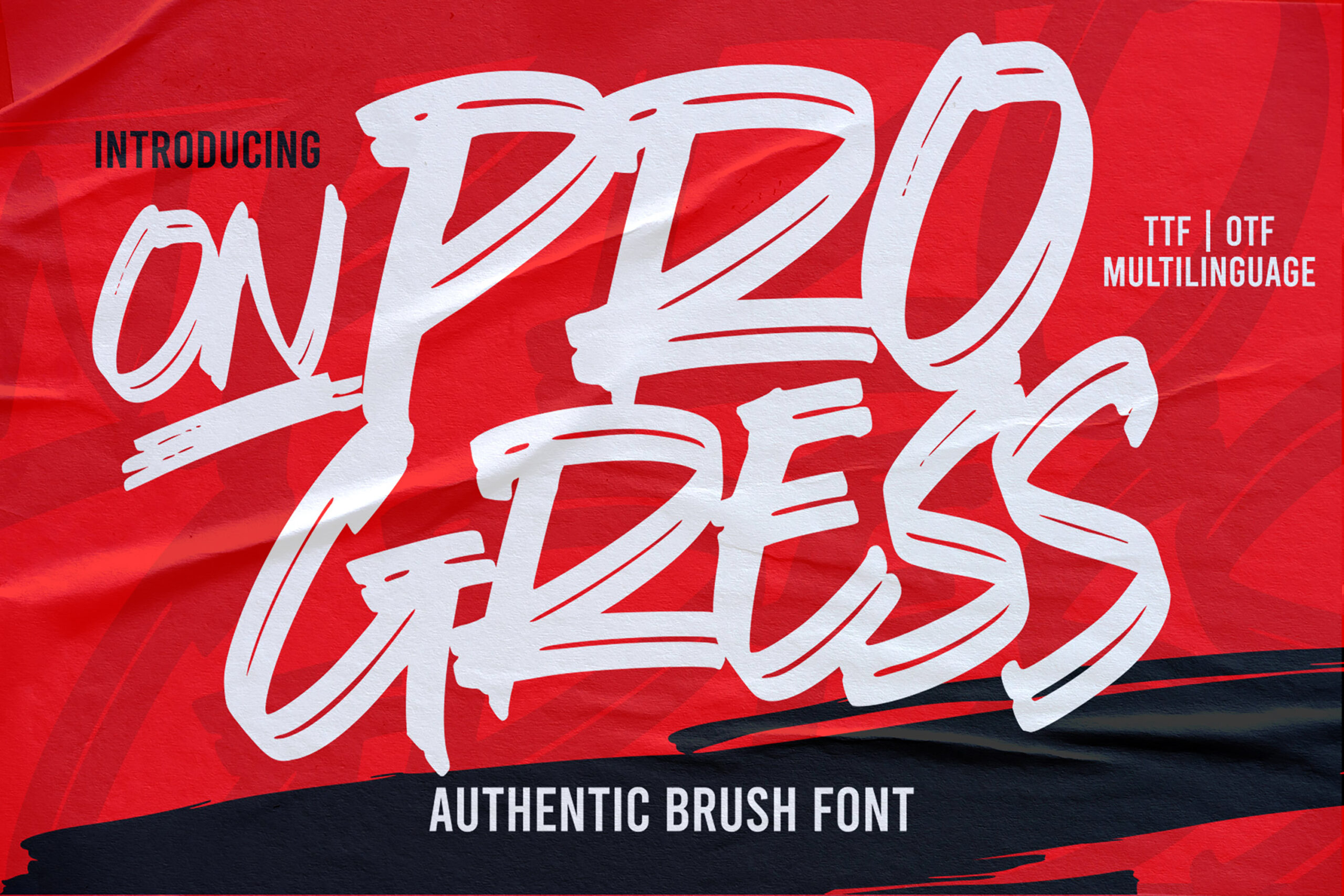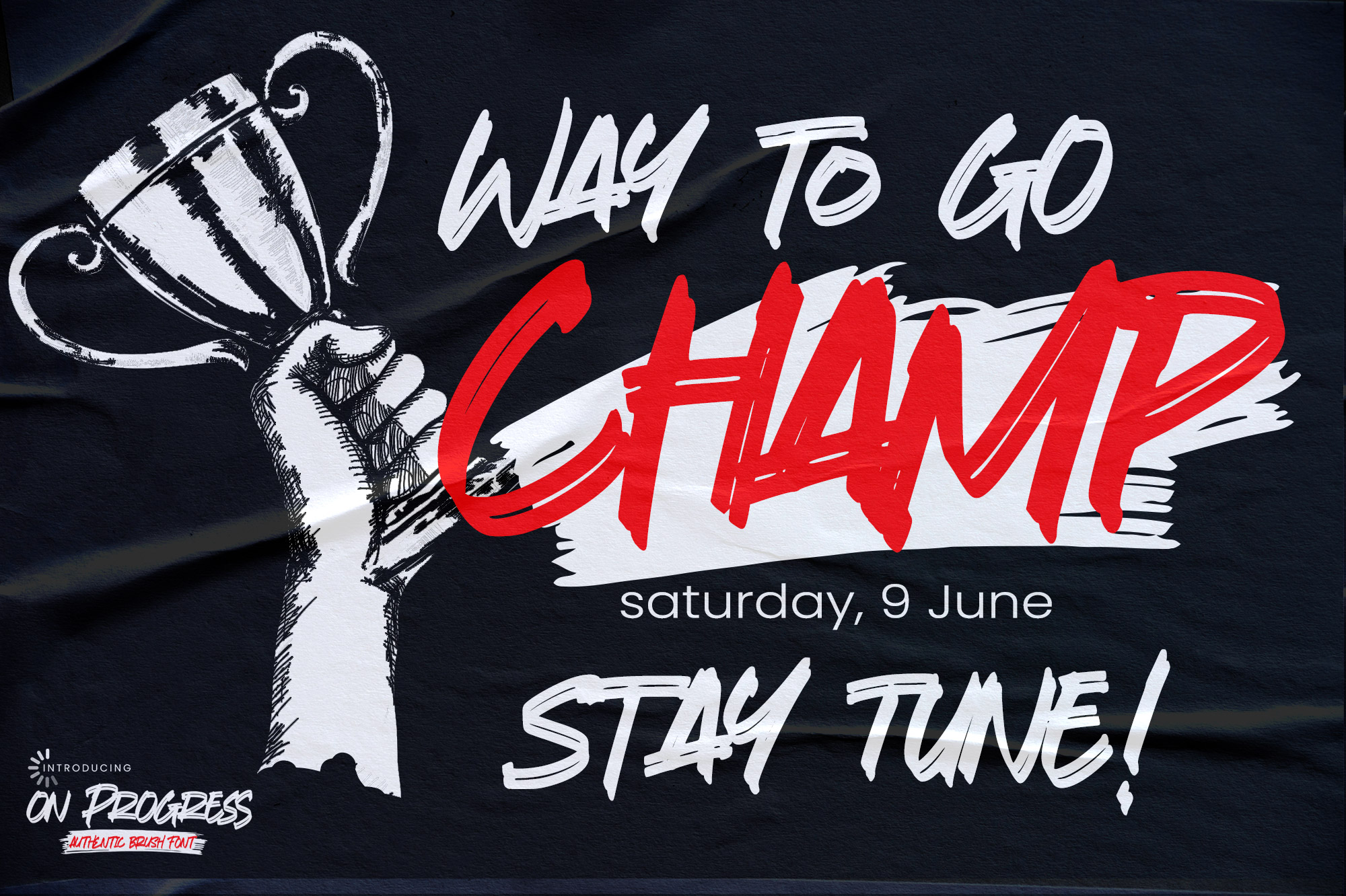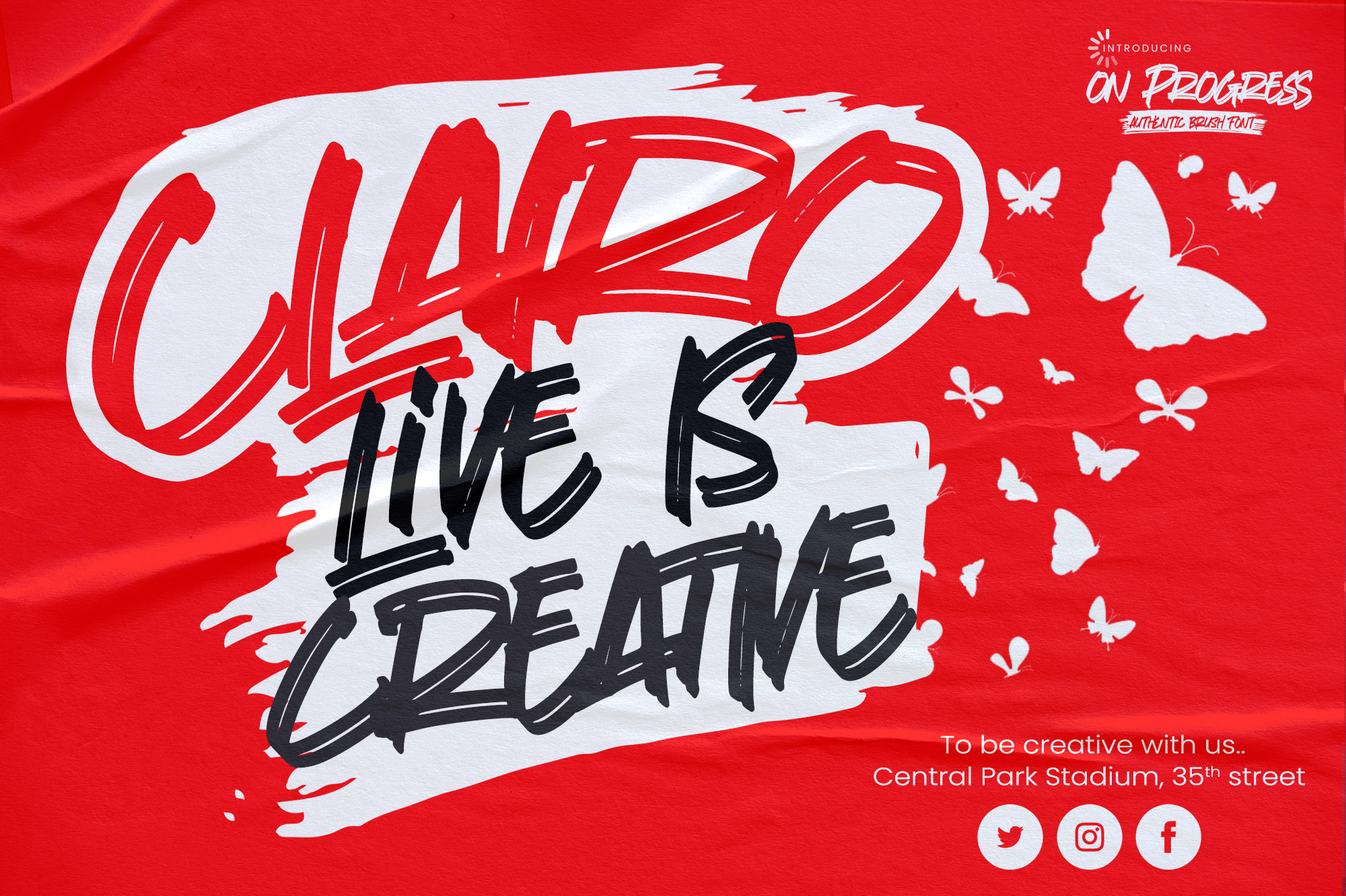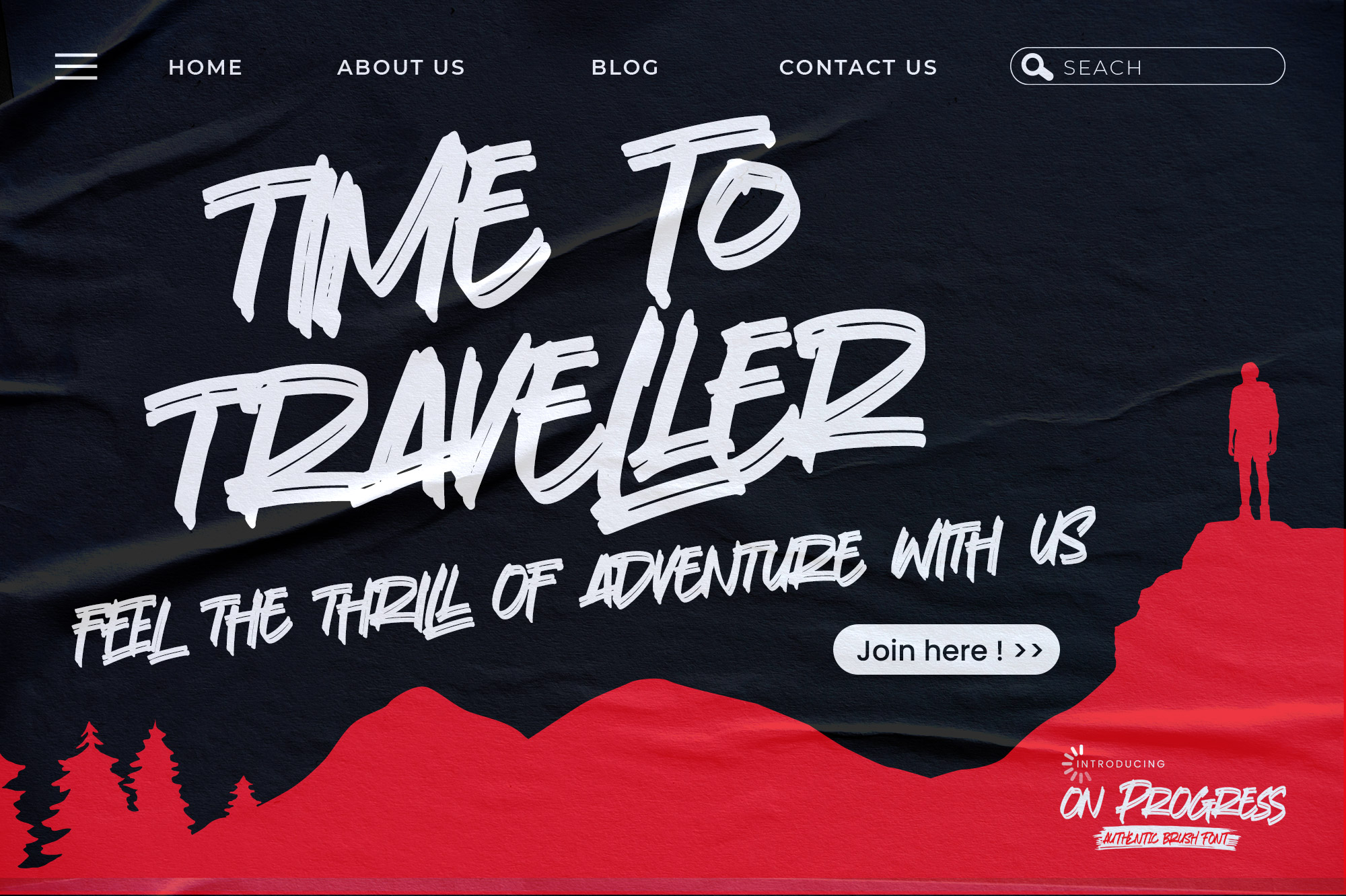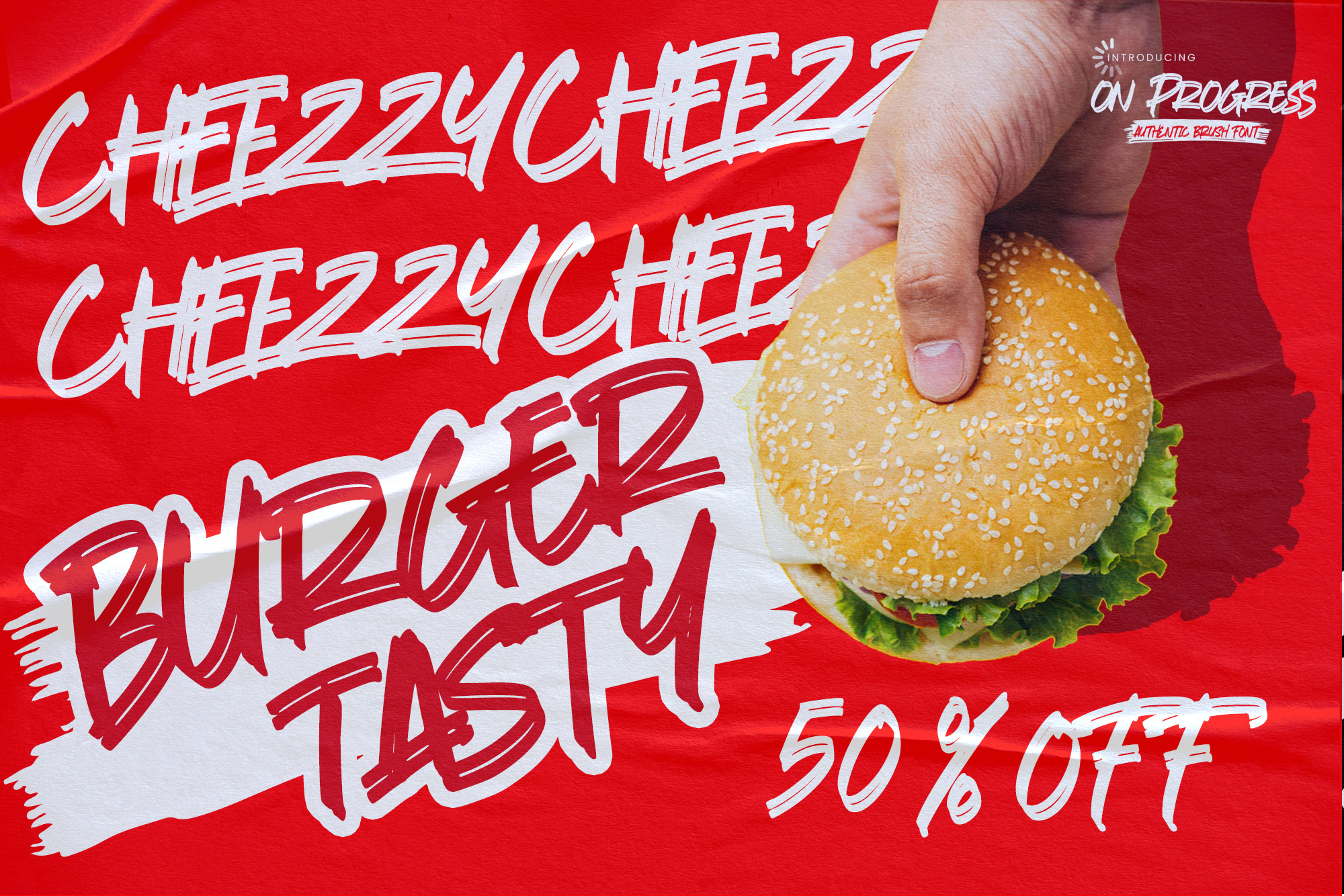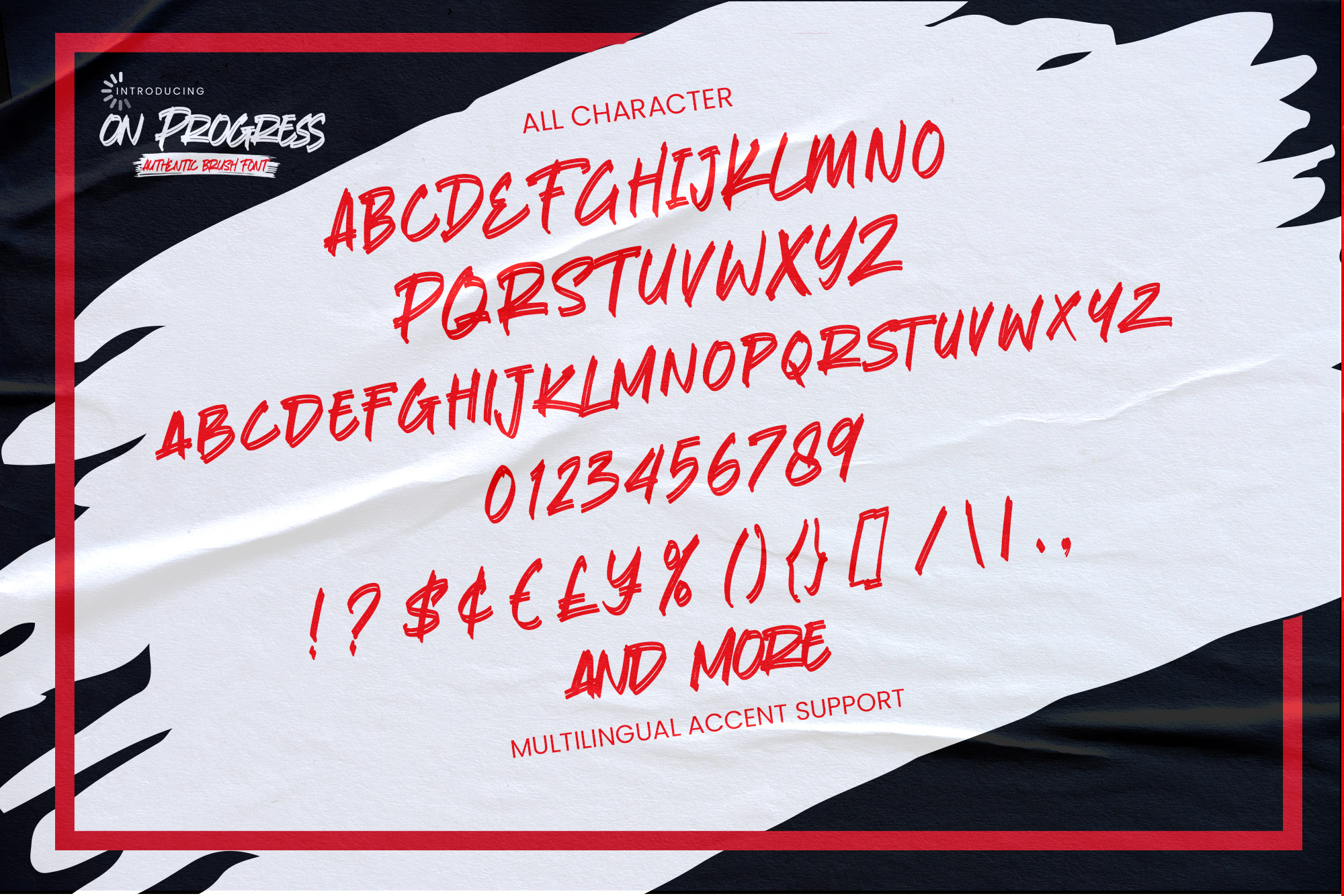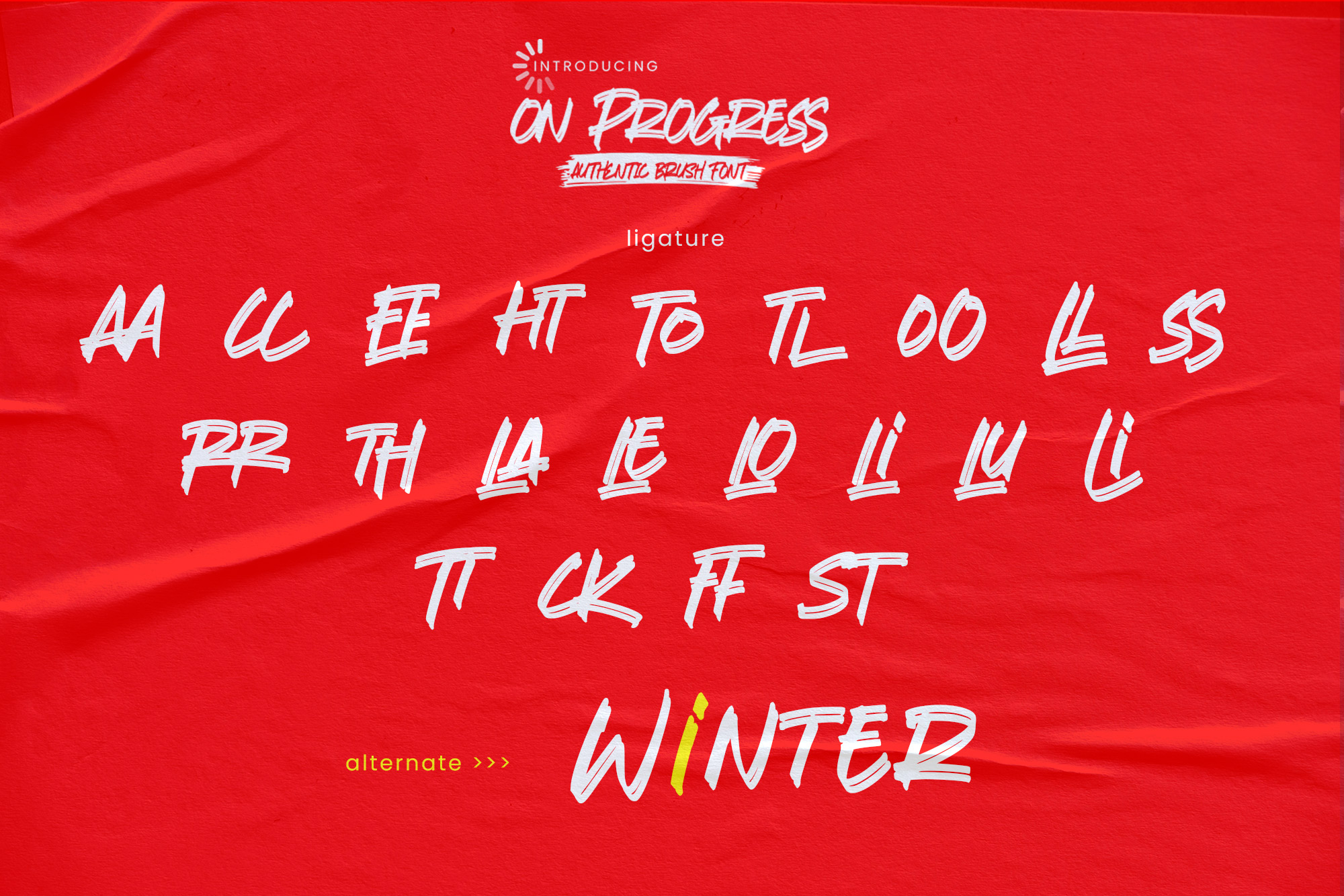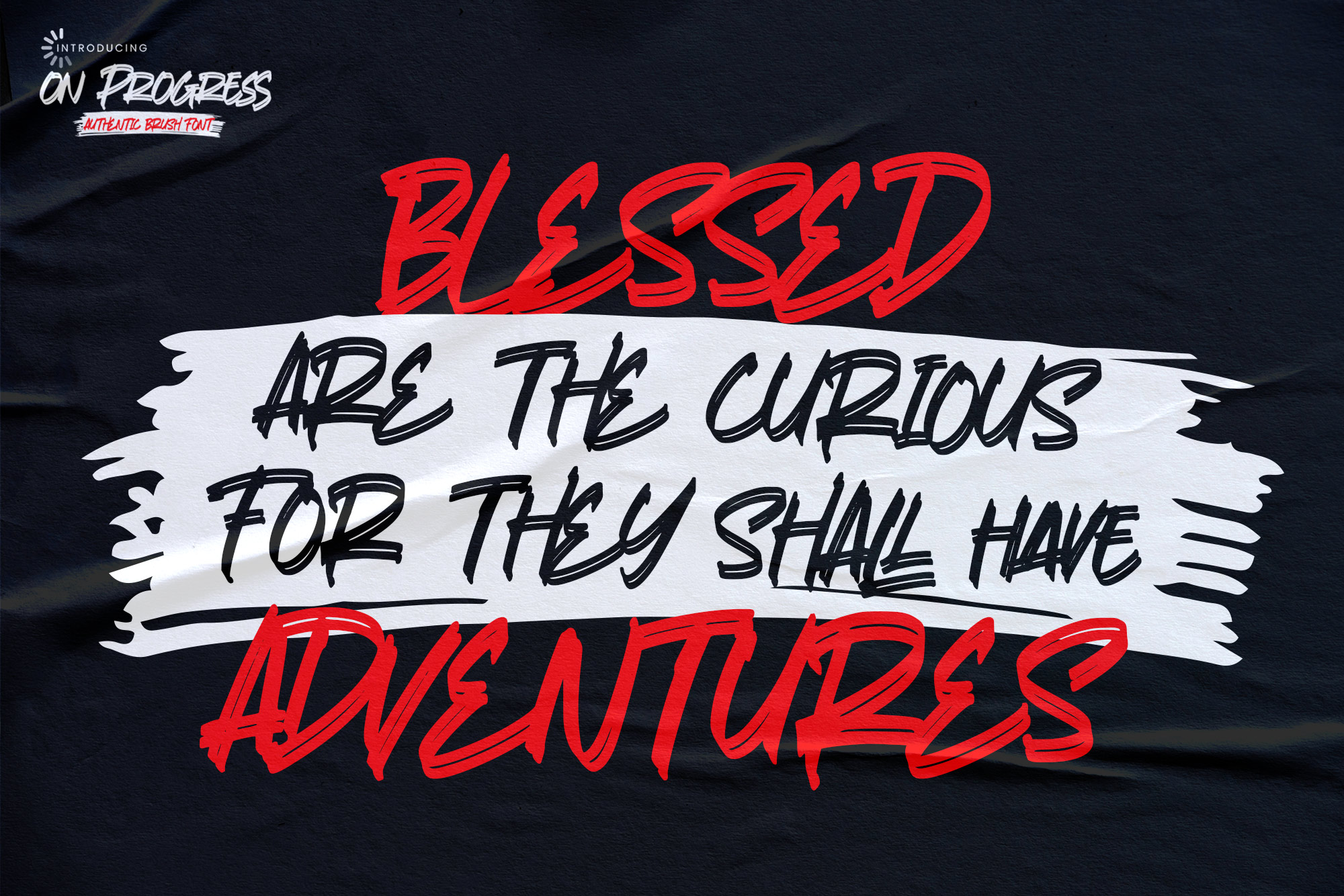
On Progress – Authentic Brush Font , modern style and dramatic movement that is written casually and quickly.
The best for labels,poster,project , designs look modern, authentic and fun. It’s perfect for labels, quotes, posters, DIY projects, branding, packaging, greeting cards, websites, photography overlays, signs, scrapbooking, tags and so much more! That is why On Progress has a textured, and cool characteristic more natural look. You can activate Ligatures glyphs OpenType panel.